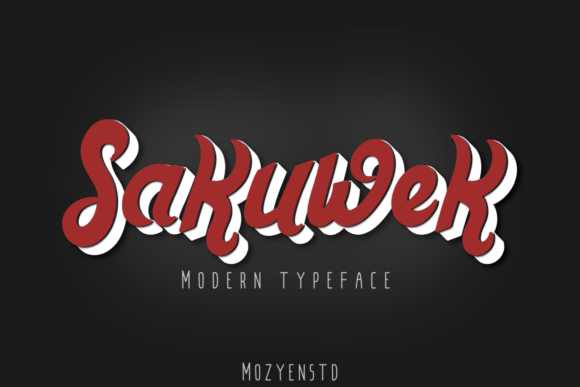
Unleash your creativity with Sakuwek Font – the ultimate way to make your words dance! This charming display font boasts a captivating style that will elevate any quote or design project. Step into a world where your words come alive with playful curves and whimsical details.
With Sakuwek, you'll discover a boundless realm of possibilities. Its versatility knows no bounds – from eye-catching headlines to heartfelt letters, it's the perfect font to convey your message with style. Whether you're a designer seeking to captivate your audience or a writer aiming to inspire, Sakuwek will ignite your imagination and make your words shine.
Embrace the magic of Sakuwek and transform your creative endeavors into masterpieces. Let its vibrant energy infuse your designs and ignite a spark in the hearts of your readers. Experience the power of Sakuwek today – where words become art and your creativity takes center stage!